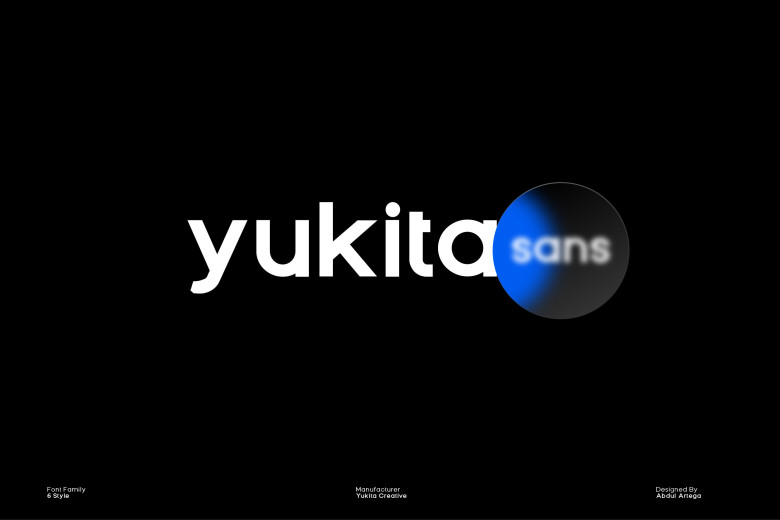
Yukita Sans Font Family
Yukita is a geometric sans serif font family. The design of every letter form is consistent. The key vertex helps to make every little point into an M, or n. The sharpness and logic in every shape allow for balance to be maintained in any form, giving a tidy and perfect aesthetic. Simple, minimalist and modern, it can be used for many types of project. There is no border than your imagination.
Yukita Sans Serif Font Family